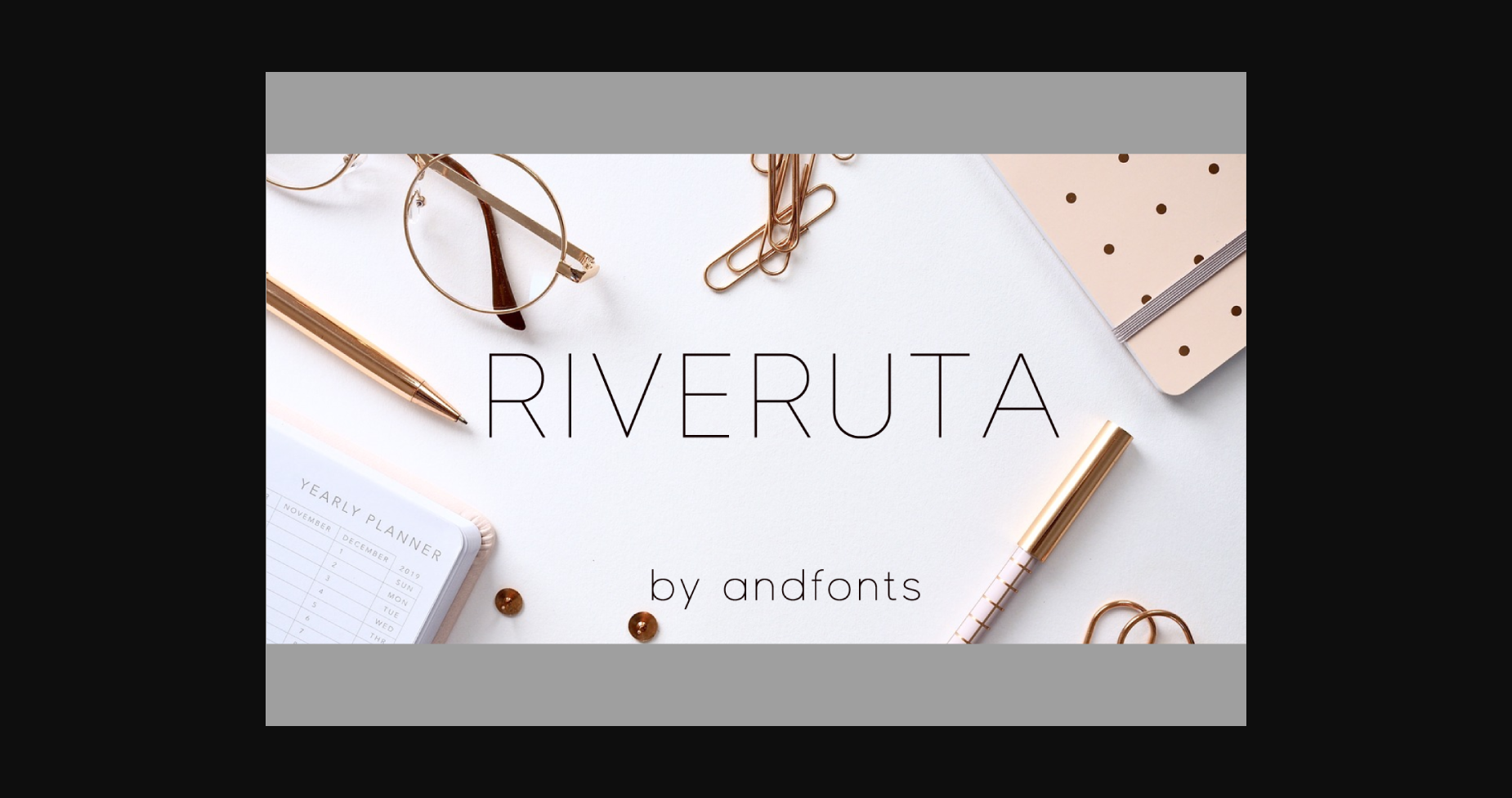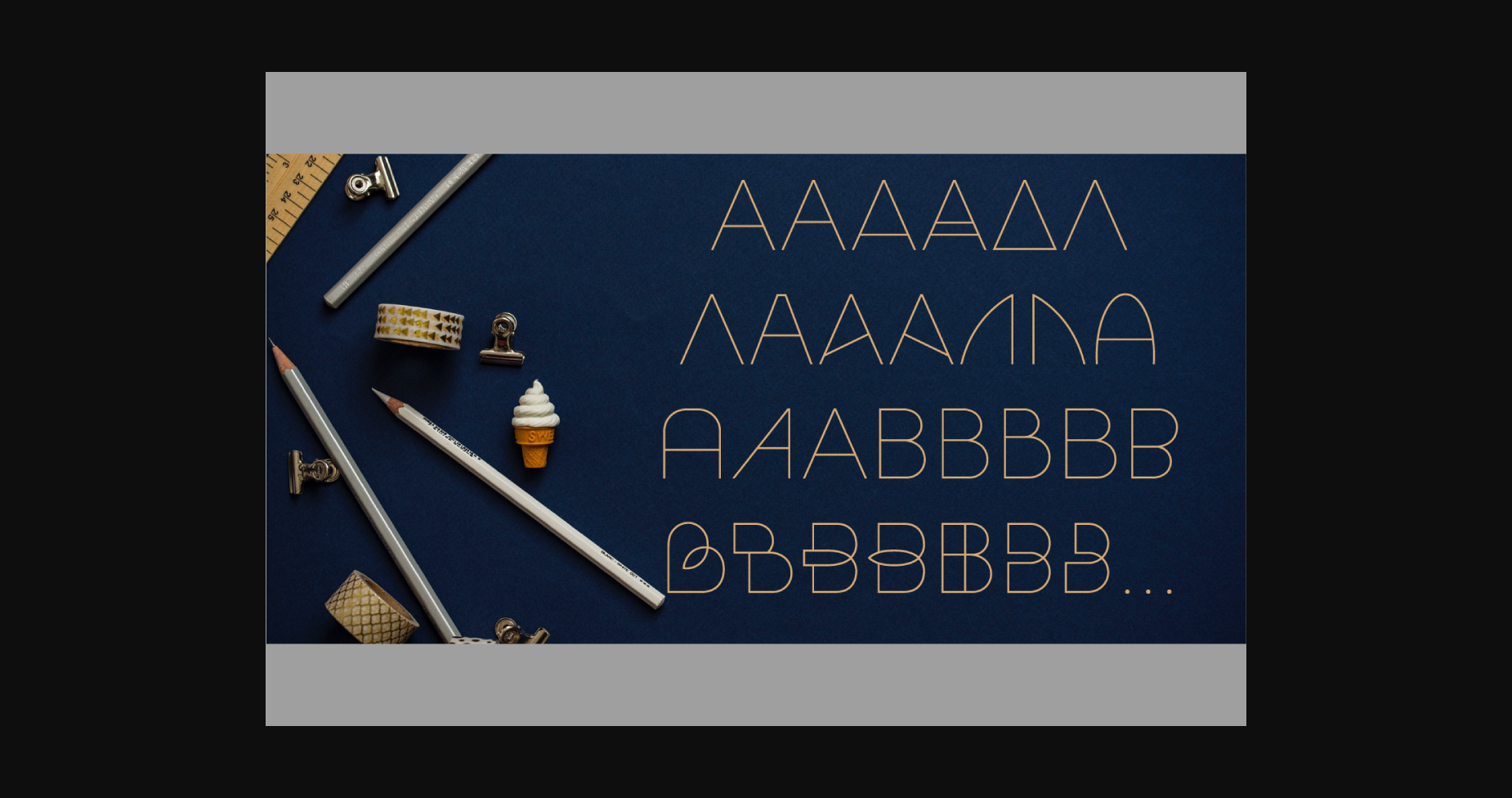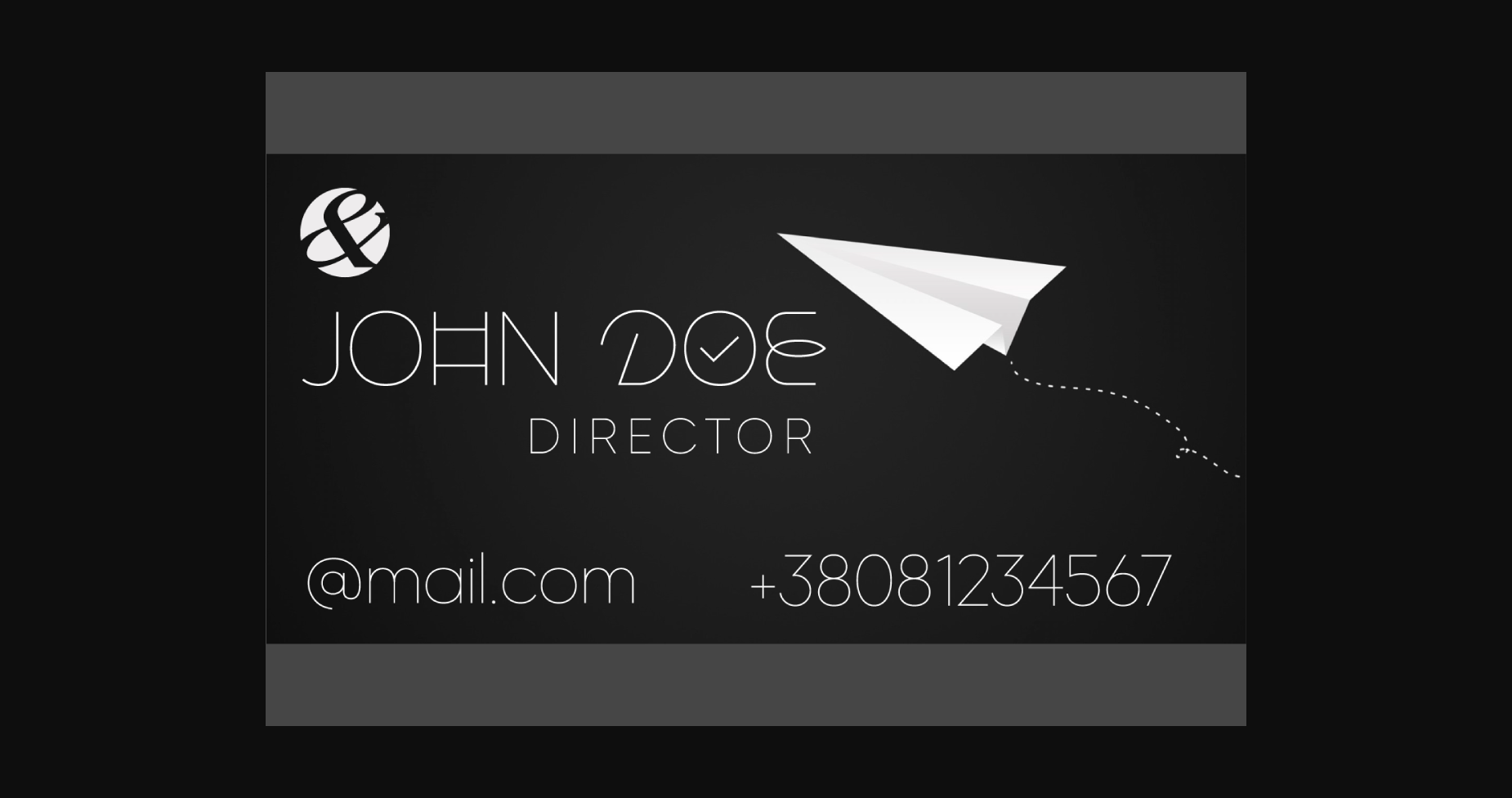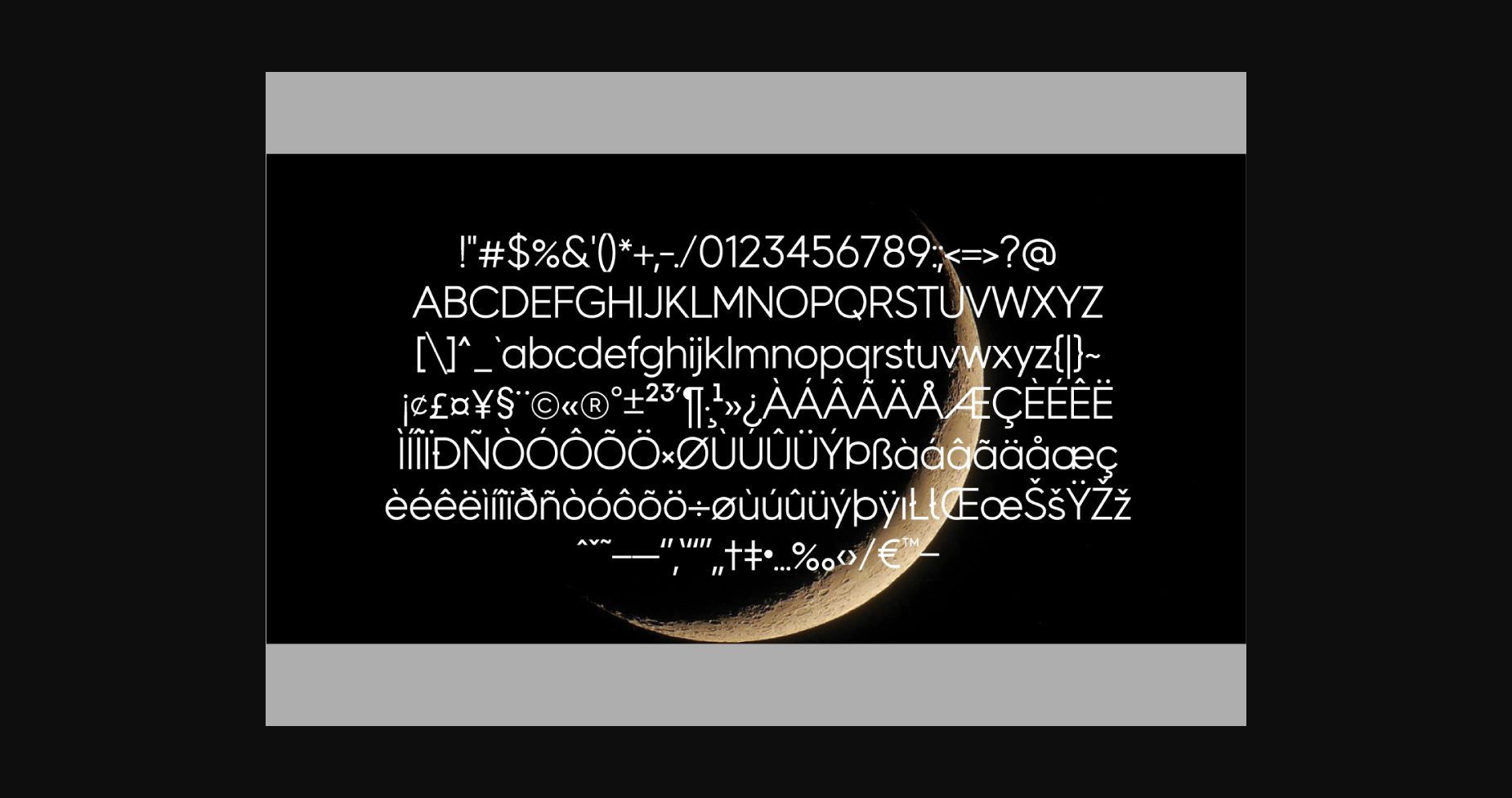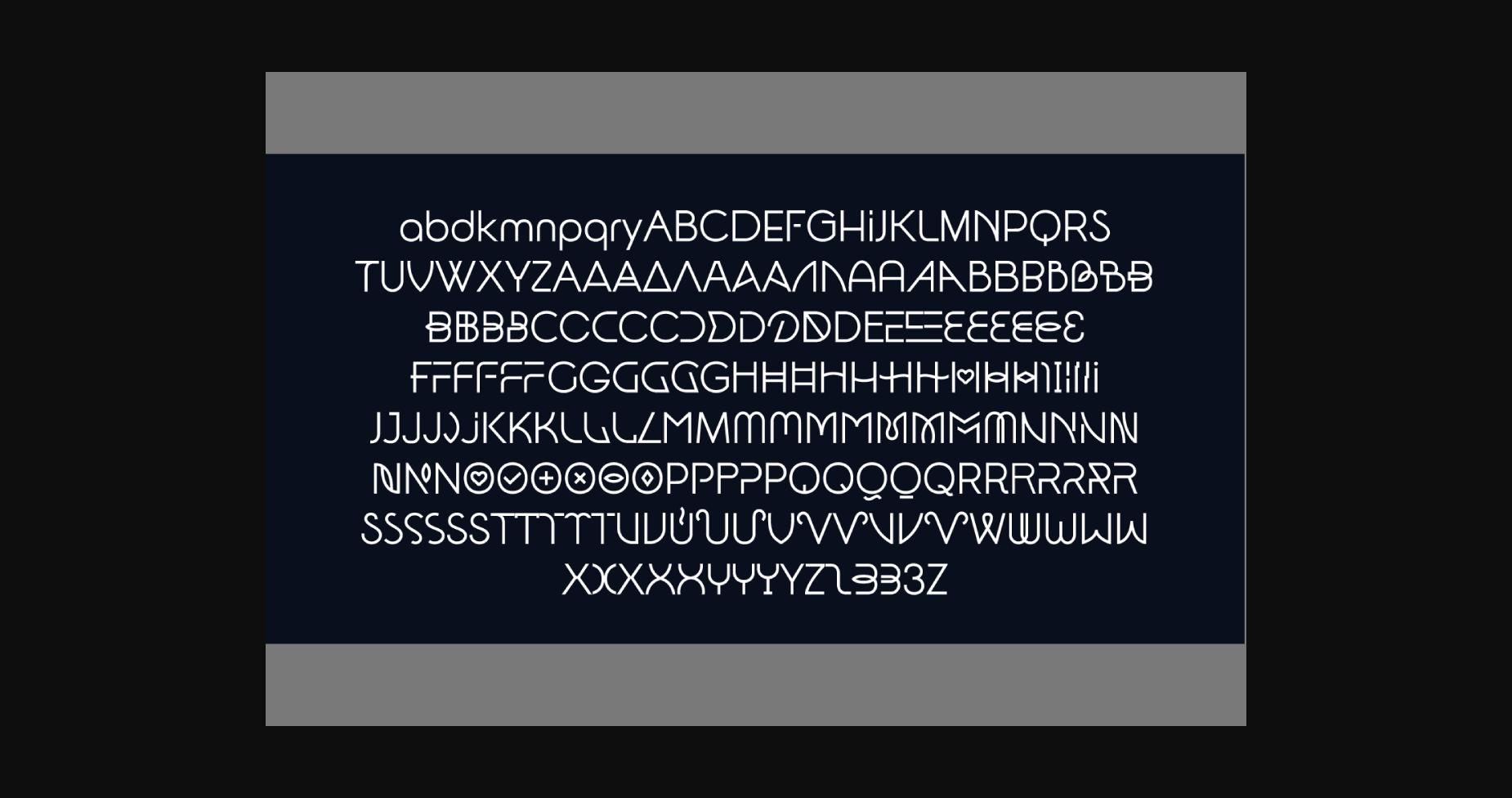
HomeSans Serif FontsRiveruta Font Sans Serif Fonts Riveruta Font FacebookXPinterestWhatsApp 1 of 7 ... Riveruta Font Poster 2... Riveruta Font Poster 3... Riveruta Font Poster 4... Riveruta Font Poster 5... Riveruta Font Poster 6... Riveruta Font Poster 7... About Riveruta Font Riveruta is a thin lettered and simple sans serif font. No matter the topic, this font will be an incredible asset to your fonts’ library, as it has the potential to elevate any creation. DOWNLOAD NOW People also explored Feriska Font Snow-Ho-Ho Font Coltine Font Ballison Font Costiera Font Tasty Food Font Senlot Serif Glory Shield Font Anilley Melia Font 838 0 TagsRiveruta Font Previous articleCandy FontNext articleFriday Pop Font LEAVE A REPLY Cancel reply Comment: Please enter your comment! Name:* Please enter your name here Email:* You have entered an incorrect email address! Please enter your email address here Website: Save my name, email, and website in this browser for the next time I comment. Personal Use Free Bajt Rounded Personal Use Free Read more about this font Zalitta Personal Use Free Read more about this font Eigha Personal Use Free Read more about this font Nickainley Personal Use Free Read more about this font BLOG Fonts That Capture the Spirit of New York City New York City is more than just a place—it’s an experience, a rhythm, a visual language... Exploring Font Trends Top 10 Handwritten Fonts That Elevate Your Designs How to Cut Any Font on Cricut: Convert a Font to SVG (Free)